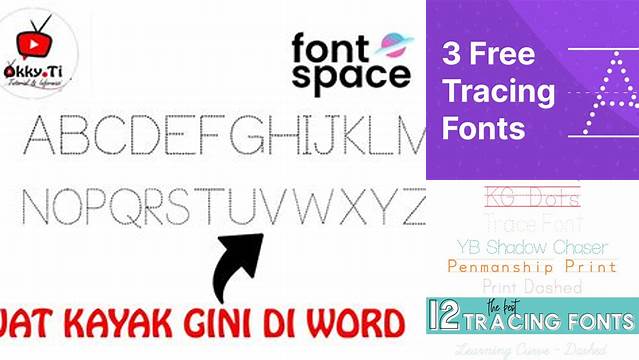
Free Download Font Trace Putus Putus: Your Ultimate Guide to Dotted Fonts for Tracing
Hey guys! Ever wanted to find the perfect dotted font for tracing? Maybe you're a teacher looking for engaging worksheets, a designer crafting unique visuals, or just someone who loves the look of incomplete lines. Well, you're in luck! This article is your ultimate guide to free download font trace putus putus – or, in other words, dotted fonts – and everything you need to know about them. We'll dive into what these fonts are, why they're awesome, where to find them, and how to use them effectively. Get ready to elevate your projects with the charm and functionality of dotted fonts!
What are Dotted Fonts? Unveiling the Magic
So, what exactly are dotted fonts, and why are they so popular? Dotted fonts, also known as trace fonts or putus-putus fonts (the Indonesian term, which translates to “broken-broken” or “dashed”), are essentially fonts where each letter is made up of a series of dots, dashes, or incomplete lines. This unique design provides a guide for tracing, making them incredibly useful for learning, practicing handwriting, or creating a specific aesthetic. Think about it – remember those early days of learning to write, tracing over the dotted letters? Dotted fonts bring that same concept to the digital world! These fonts are extremely helpful for young children, helping them to learn letters and numbers with ease. They are also used in education, design, and even for creating eye-catching visuals. The key characteristic is the broken or incomplete structure of the letters, which invites the user to fill in the gaps, promoting engagement and learning through a hands-on approach. This approach makes them an excellent choice for various projects where you want to encourage interaction or add a touch of creativity. Dotted fonts are perfect for creating engaging worksheets, fun activities, or adding a unique design element to your work. The beauty of dotted fonts lies in their versatility. They can be used in a variety of contexts, from educational materials to creative design projects. Their purpose is to encourage users to interact with the design, whether it is tracing the letters or completing an outline. They are available in different styles. You can find them in a wide range of fonts from simple and clear designs suitable for young learners to more elaborate and stylistic fonts suitable for artistic projects. You can use these fonts across multiple design platforms such as Canva, Adobe Photoshop, and Microsoft Word. These types of fonts are an excellent way to infuse creativity in your projects while promoting user engagement.
Benefits of Using Dotted Fonts
Why should you consider using dotted fonts in your projects? There are a ton of advantages! Firstly, dotted fonts are an excellent educational tool. They are especially effective for teaching handwriting to kids. By tracing the dotted lines, children learn letter formation, improve their fine motor skills, and gain confidence in their writing abilities. It’s a fun and interactive way to learn, which makes the learning process more enjoyable and effective. For educators, dotted fonts are gold. They can create custom worksheets, practice sheets, and other learning materials. This makes them a valuable asset in classrooms and homeschooling environments. This educational use extends to adults who are trying to improve their handwriting. Dotted fonts offer a great starting point for practicing and refining penmanship, especially if you're into calligraphy or brush lettering. Beyond education, dotted fonts can add a unique design element to your projects. They offer a distinct visual appeal, making your designs stand out. They can be used to create a vintage, handmade, or playful look, depending on the font style. For designers, dotted fonts are a creative tool. Use these in your branding, invitations, or any project where you want to add a touch of personality and interaction. Using dotted fonts also enhances user engagement. The act of tracing the letters encourages interaction and makes the content more memorable. This is a powerful tool for businesses that create interactive marketing materials or educational resources. It is important to note that they are versatile and can be adapted to a wide variety of projects. They are a great option for those who want to create something unique, engaging, and educational. So, guys, if you're looking to add a dash of creativity, boost learning, or enhance engagement, dotted fonts are your secret weapon!